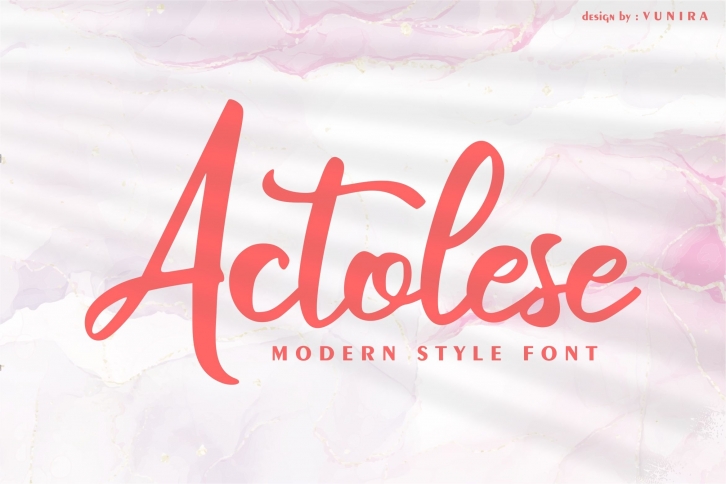
Actolese is a trendy and unique font with an authentic style. It was designed by Vunira and it's a great choice for creative people who need such a font. It was released on December 26, 2020 and the file size is 8.45 MB. Actolese will add an organic vibe to any design idea!